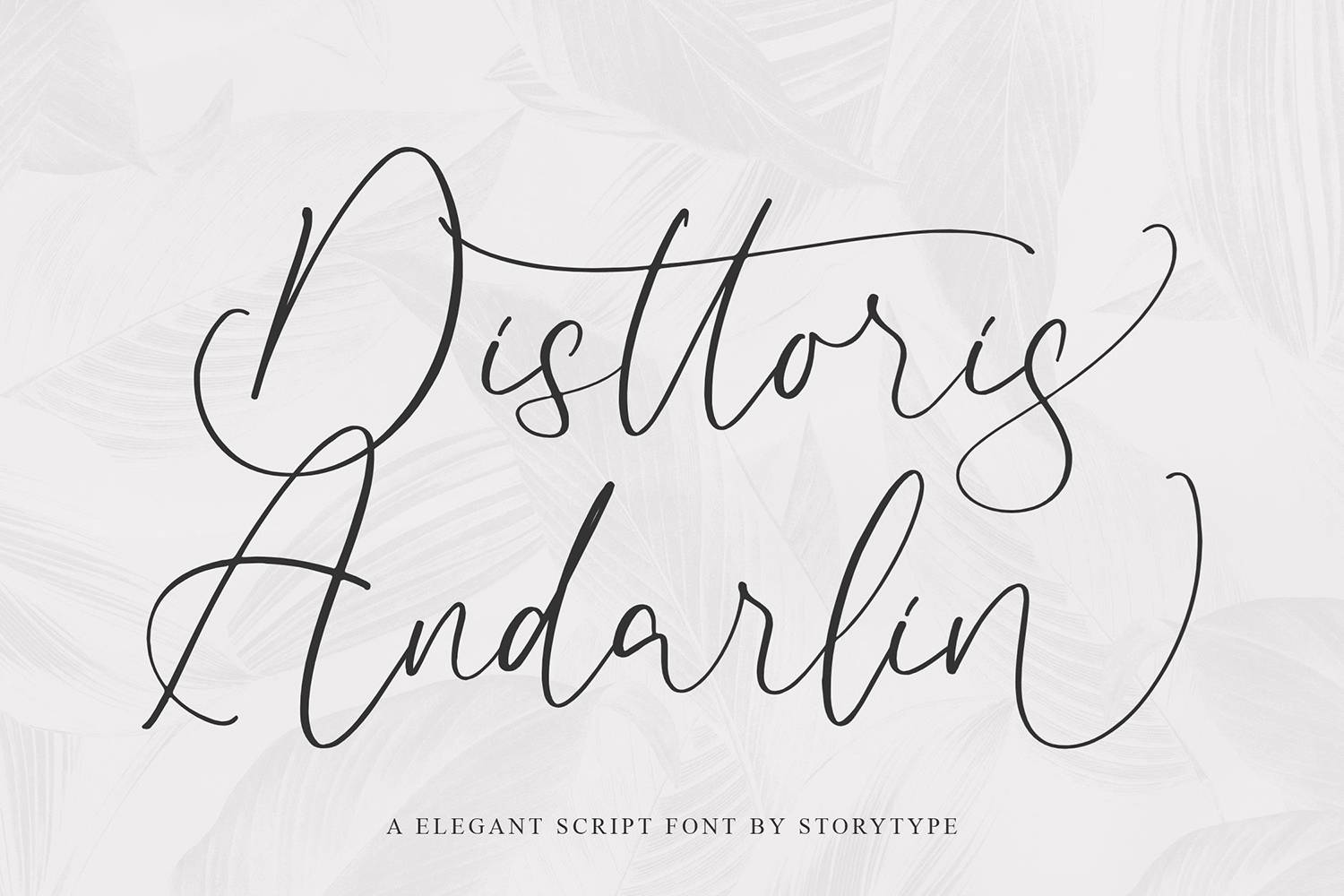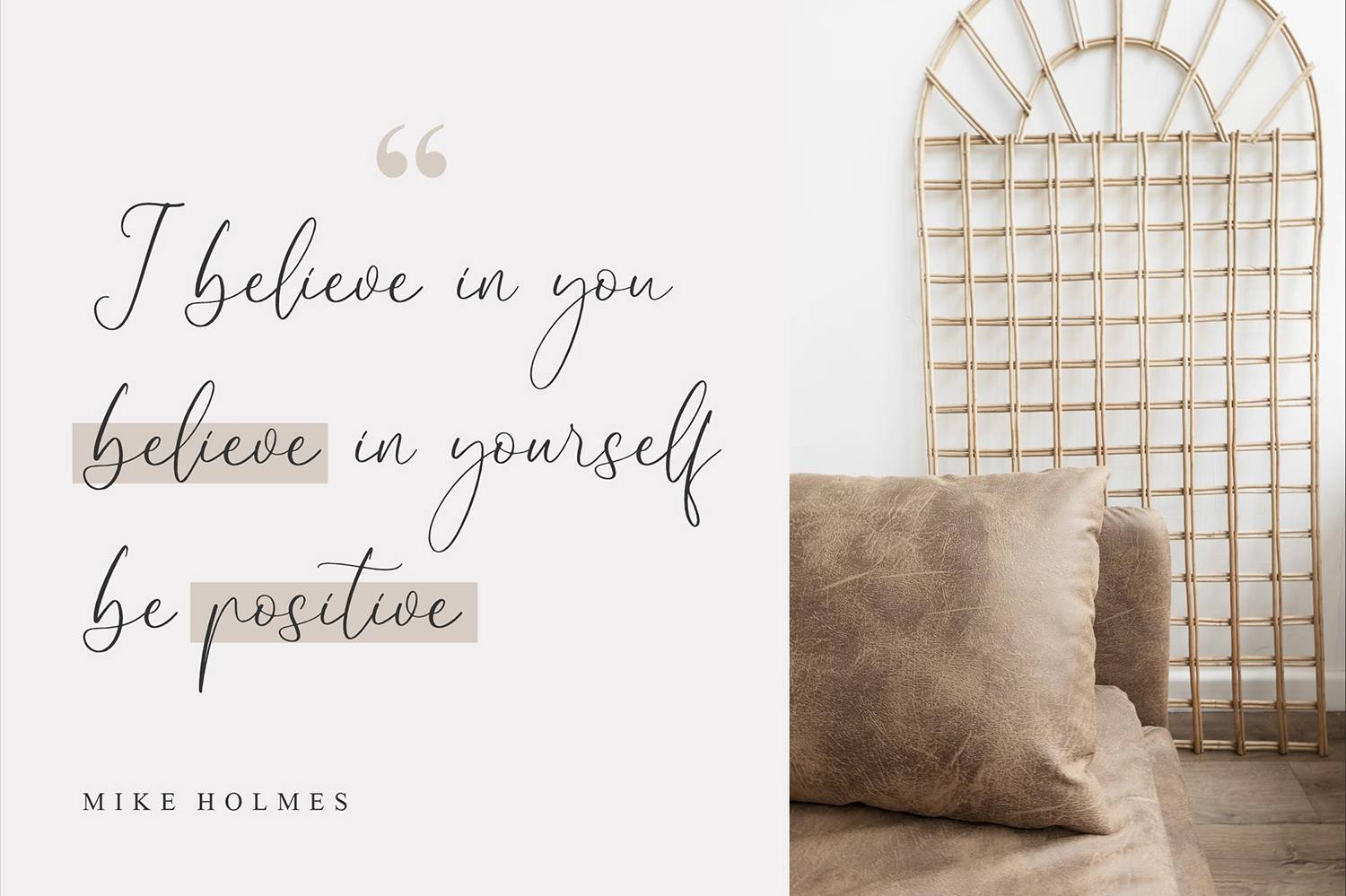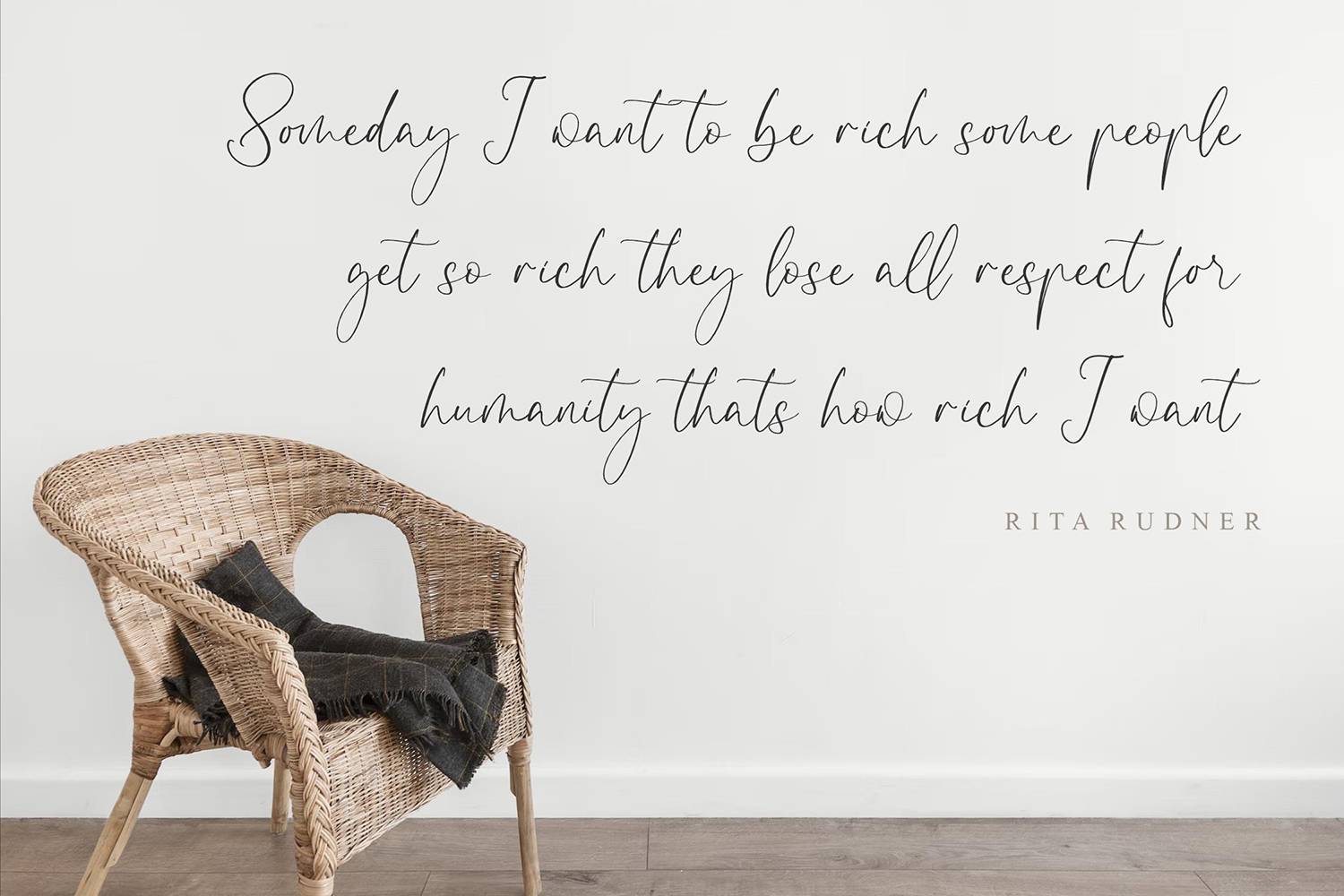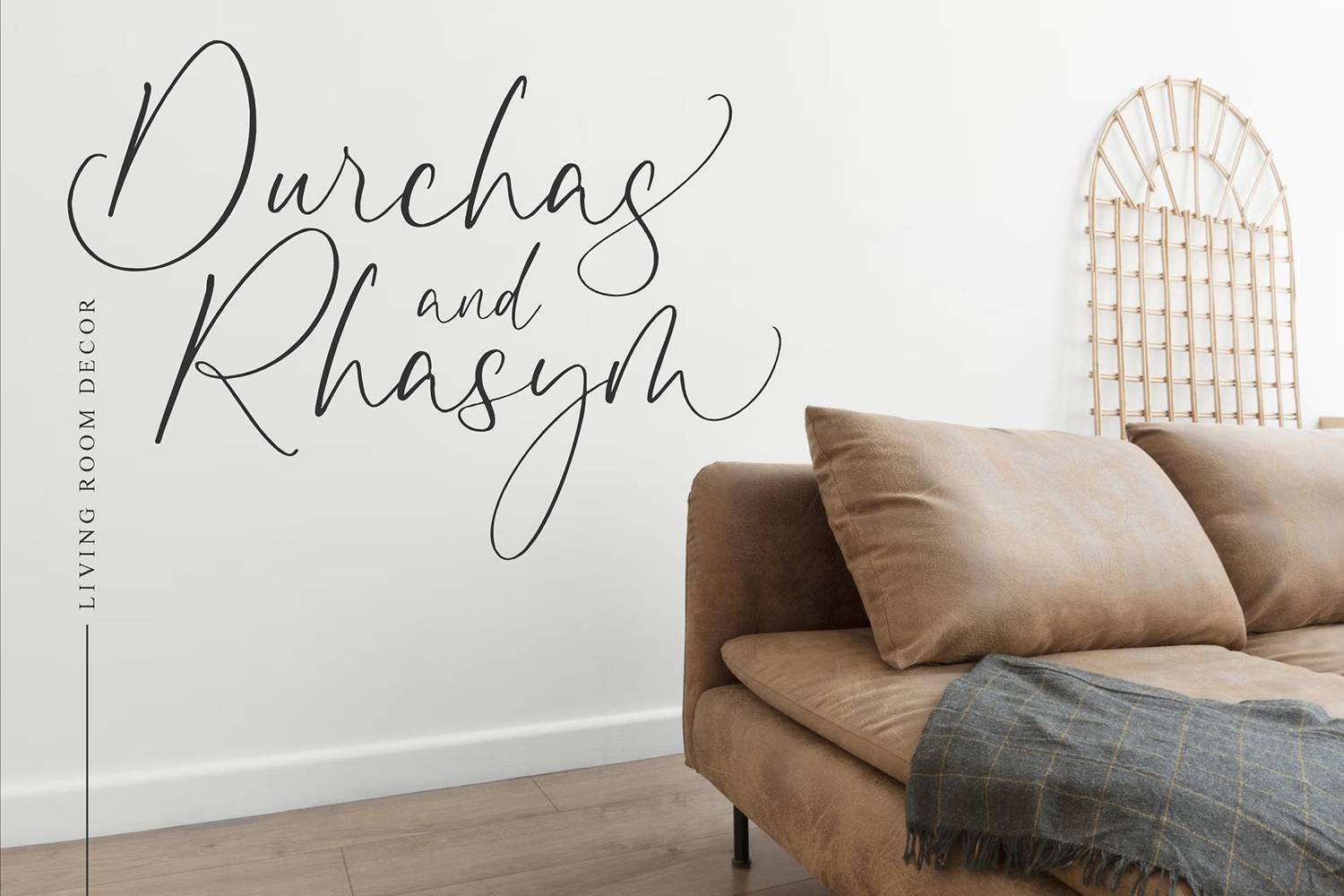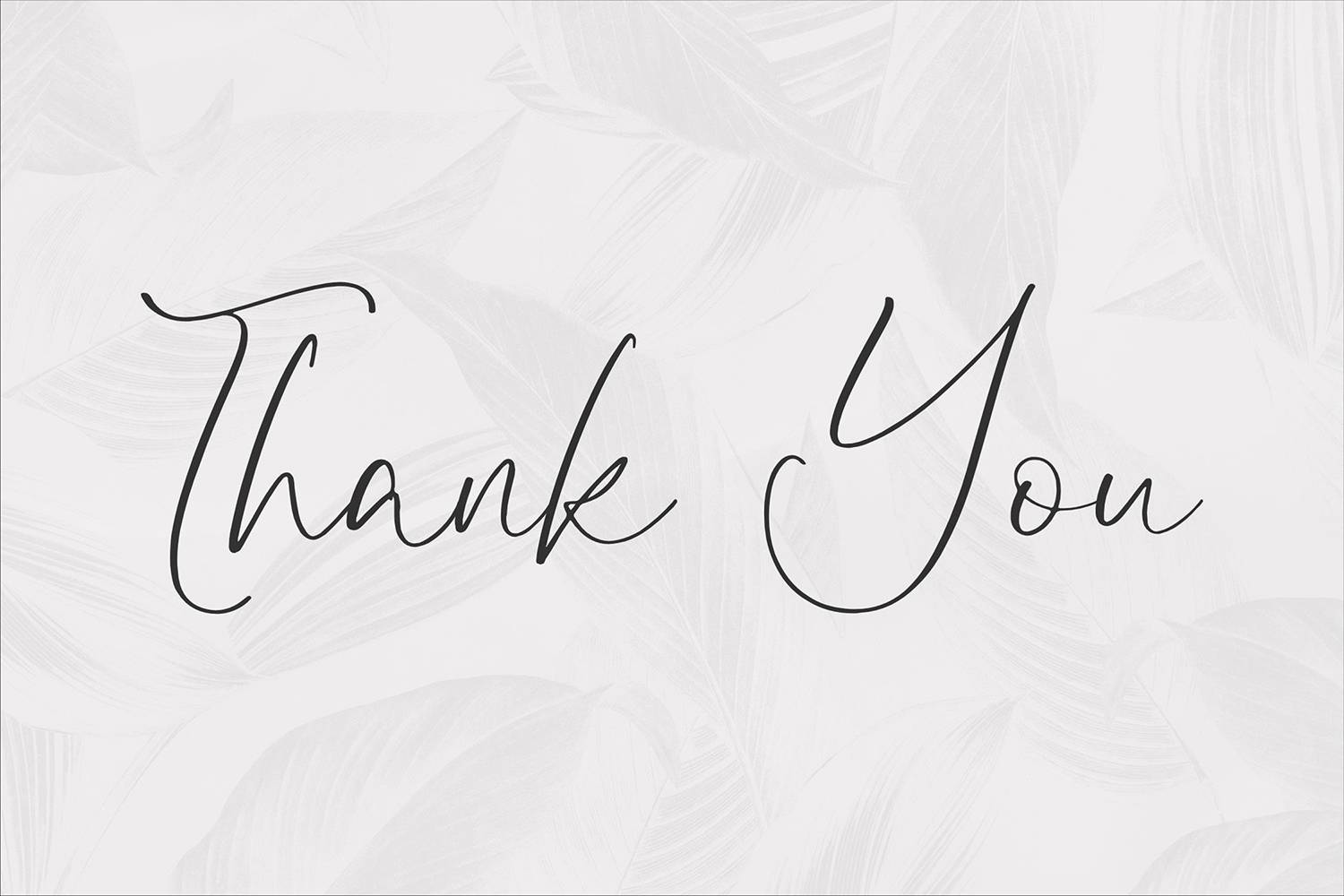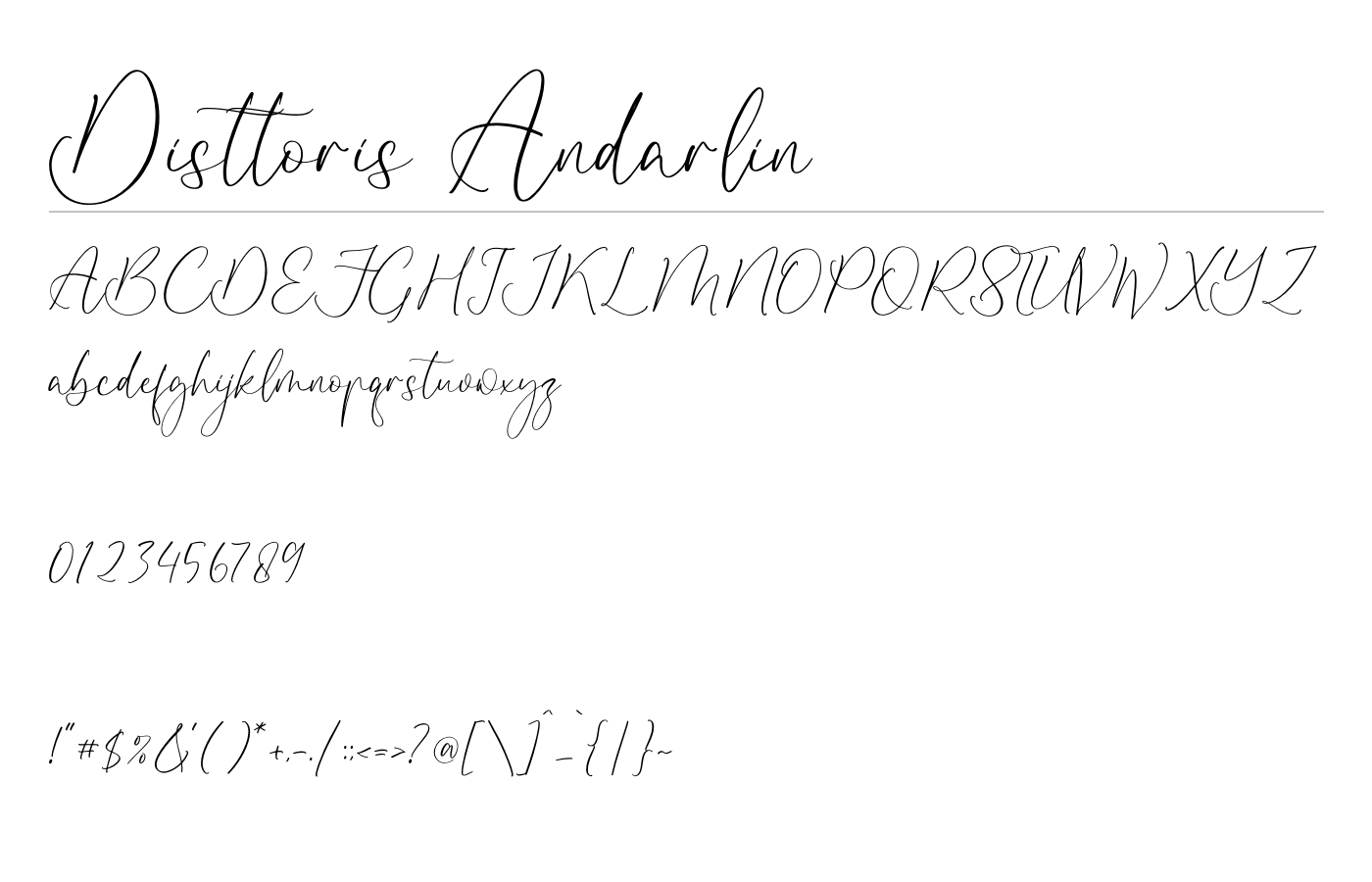
Disttoris Andarlin is a delicate, elegant script font characterized by its fine, flowing strokes and a handwritten feel that radiates grace and sophistication. Its tall, slender letterforms with soft curves and varied line thickness make it perfect for wedding invitations, branding, and projects where a touch of refinement and personal style is desired. This font works beautifully in headlines or decorative uses, lending a light, airy, and stylish personality to luxury and creative designs.
Disttoris Andarlin Font
About Disttoris Andarlin Font
| Font family | Disttoris Andarlin Font |